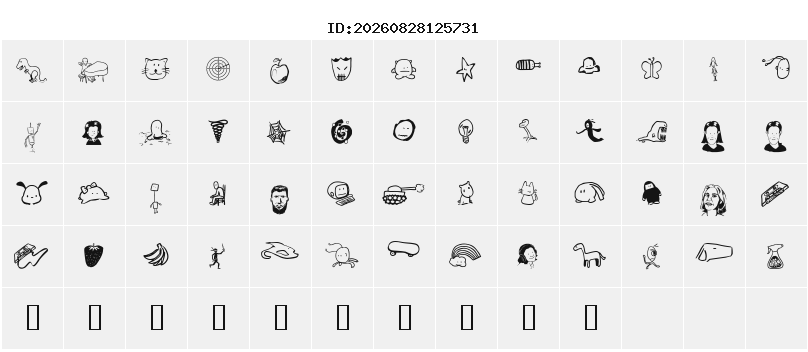
Tombats 7 Preview
• Designer: Tom Murphy 7
• Manufacturer: [Divide By Zero] Fonts
• Description: This is the 7th in the series of Tombats (cute dingbats). 7's a special number around here, so this must be a special font! For the entire DBZ collection: http://fonts.tom7.com/
About Tombats 7.ttf